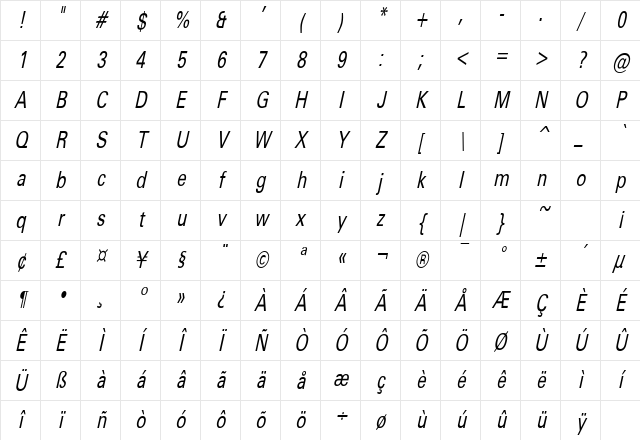
ObeliskCondensed Oblique
ObeliskCondensed Family
ObeliskCondensed Oblique
Design Context for ObeliskCondensed
ObeliskCondensed is a composed and adaptable typeface that performs quietly and consistently across a wide range of design contexts. The slanted form adds forward momentum and visual energy. Its narrow stance lets it pack a punch even in space-constrained designs.